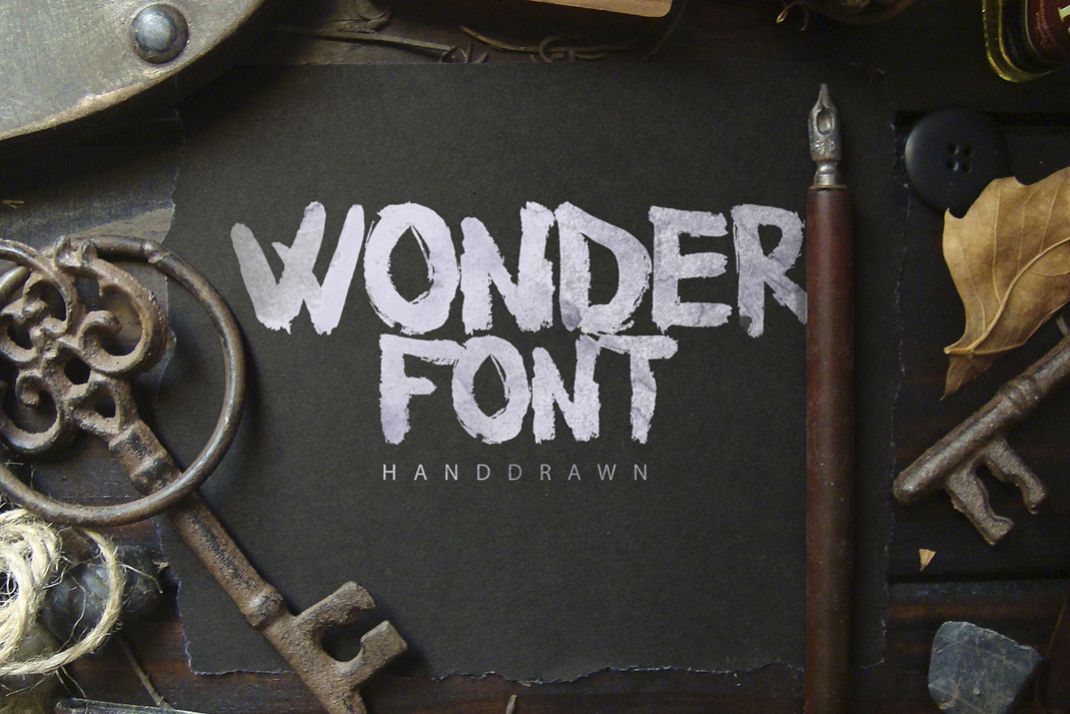
Wonderfont Brush Typeface
Wonderfont is a handmade brush font that looks hard and informal perfect for logos and templates.
All Uppercase. All letters. All numbers.